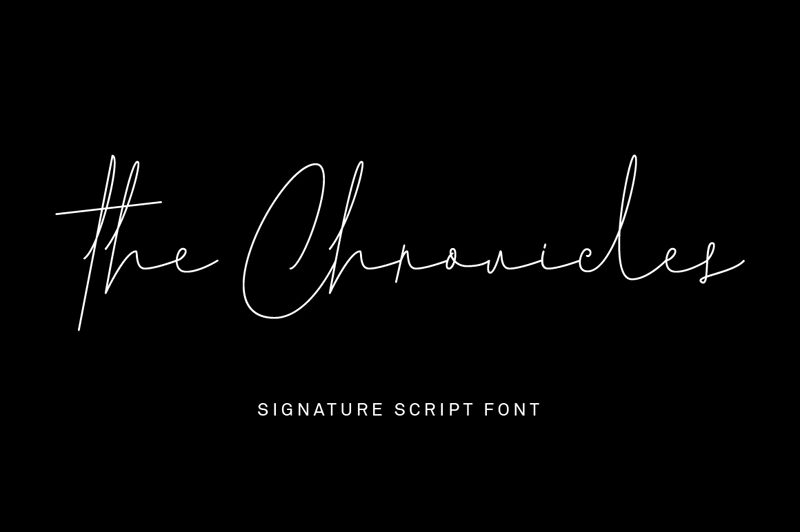
Chronicles
Chronicles font, a handwritten creation from Angin Studio, seamlessly combines modern elegance with a delightful personal touch. Its fluidity and minimalist aesthetic lend a serene, approachable atmosphere to any project. Lightly-weighted and delicately crafted, it mirrors the most tender of script works – showcasing undeniable beauty with every letter.
This free handwritten font is perfect for signature logos, posters, invitations, social media graphics, business cards and shop signage. Apply it in websites/blogs or use it in branding designs for cosmetics or skincare products requiring that little special something to stand out!